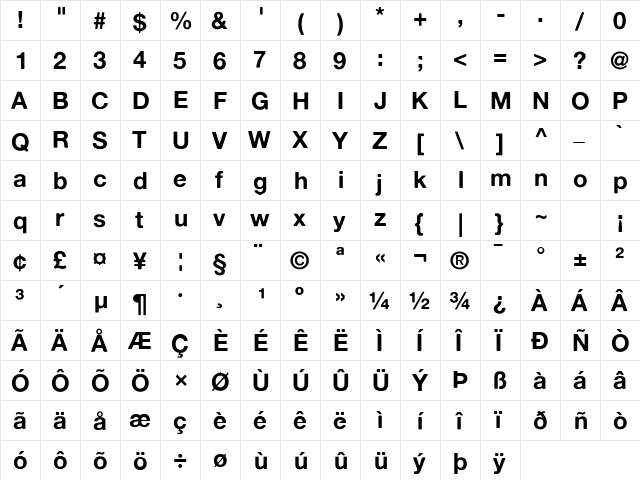
Alte Haas Grotesk Bold
| Foundry | Yann Le Coroller |
| Designer | Yann Le Coroller |
Design Context for Alte Haas Grotesk Typeface
Alte Haas Grotesk takes a clean, functional approach — its unadorned letterforms prioritise legibility and work reliably across screen and print environments. The heavy weight commands attention and anchors typographic hierarchies.
Well-suited to navigation labels, product packaging, and anywhere legibility at scale is essential.
Font Pairing: Use Alte Haas Grotesk for headlines alongside a lighter-weight sans or serif for body copy to establish clear visual hierarchy.
Pro Tip: Use Alte Haas Grotesk for UI labels, navigation, and short-form body copy where clean legibility is the priority.